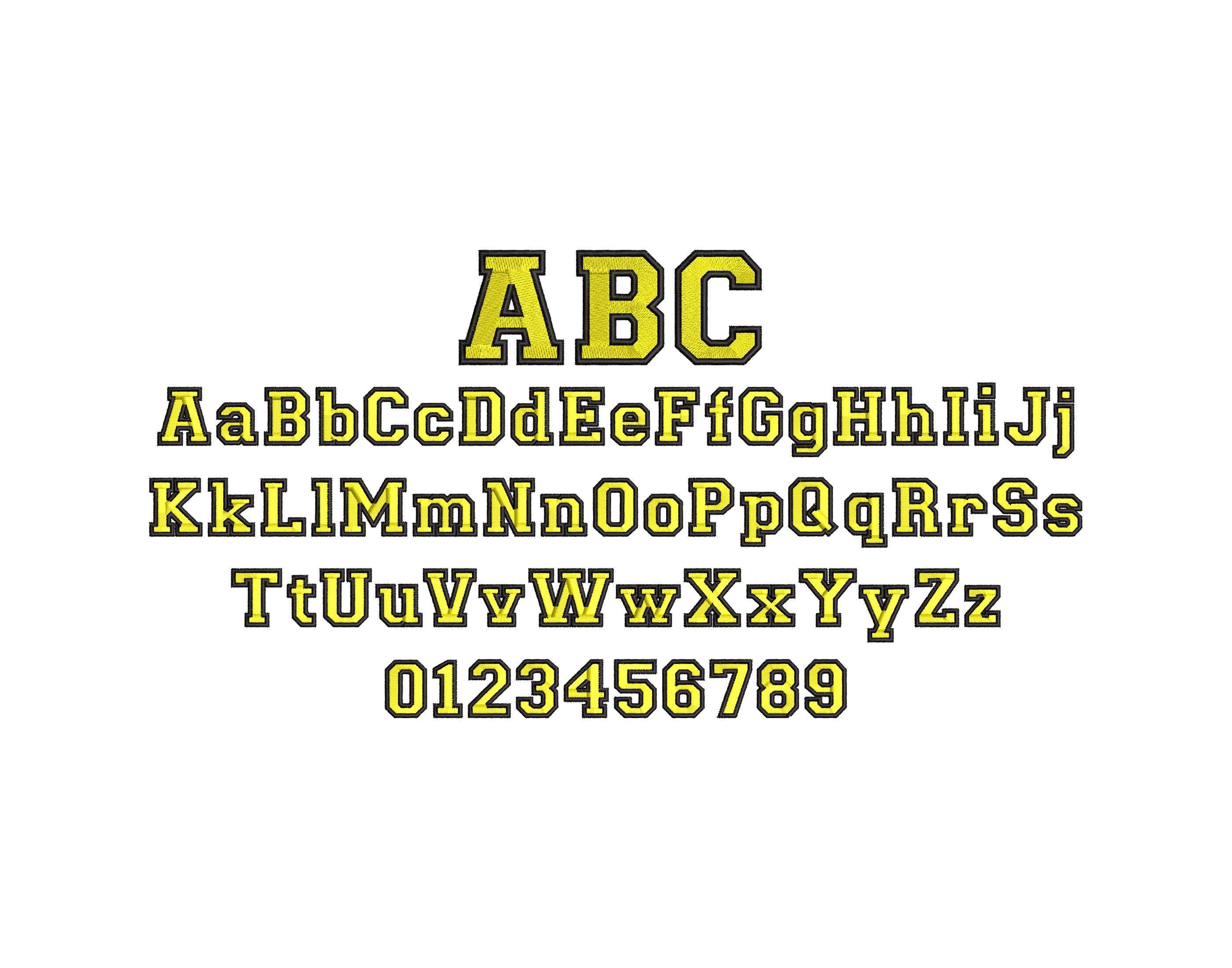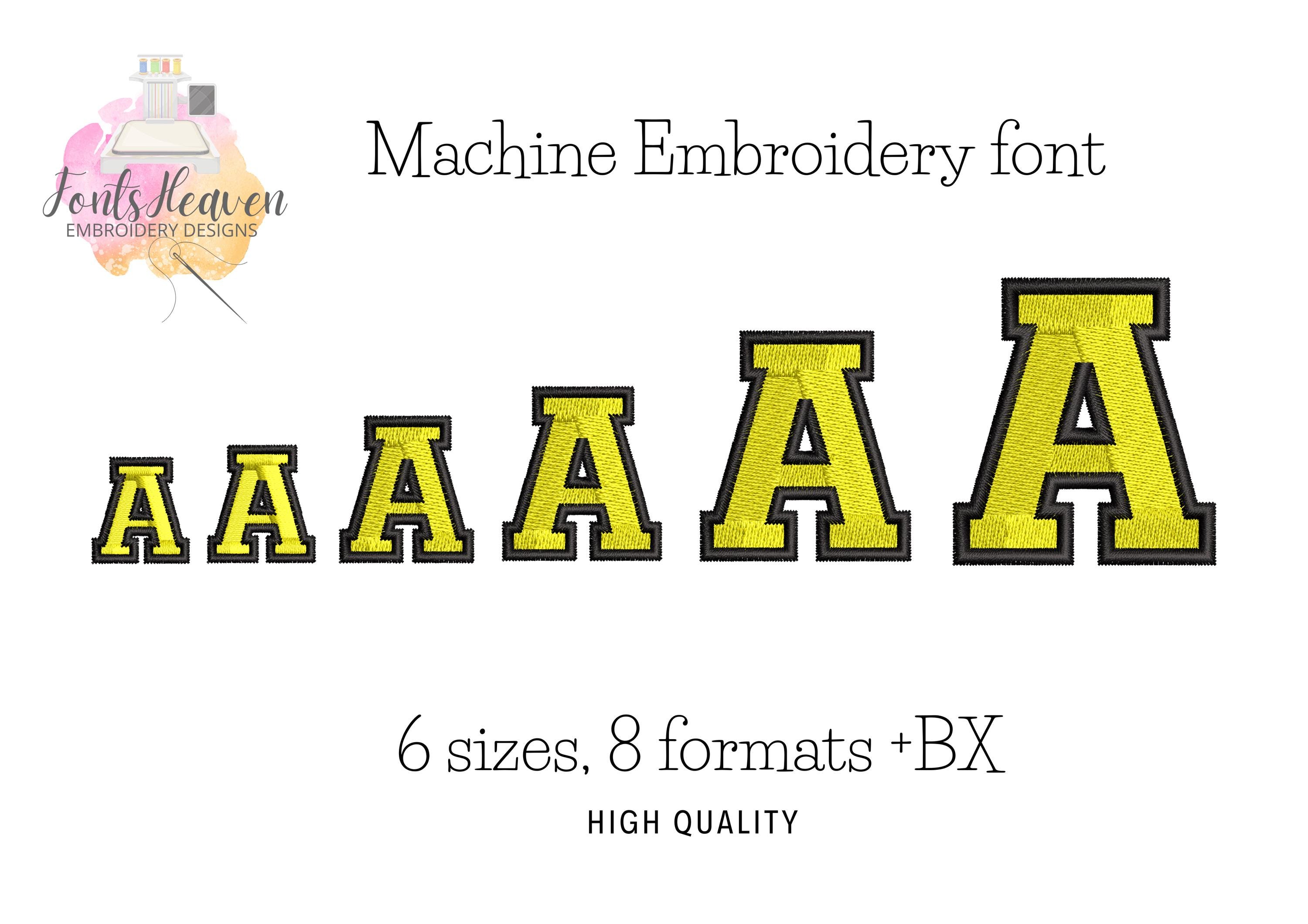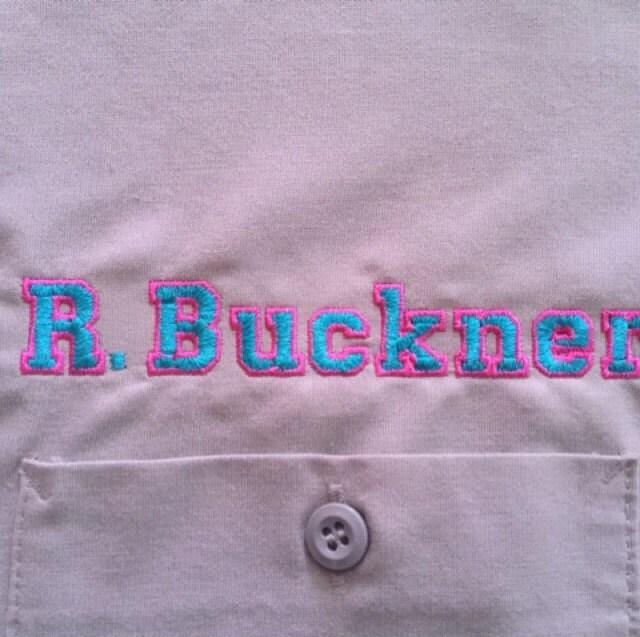
Sport Collegiate Block mini FONT fill stitch and outline Monogram Alphabet letters machine embroidery designs small mini sizes 0.7 up to 2in
Fill and satin stitch designs
0.7 inches - satin stitch
0.8 inch - satin stitch
1 inch - fill stitch
1.2 inches - fill stitch
1.6 inches - fill stitch
2 inches - fill stitch
Entire alphabet uppercase and lowercase letters Aa-Zz, and numbers 0-9.